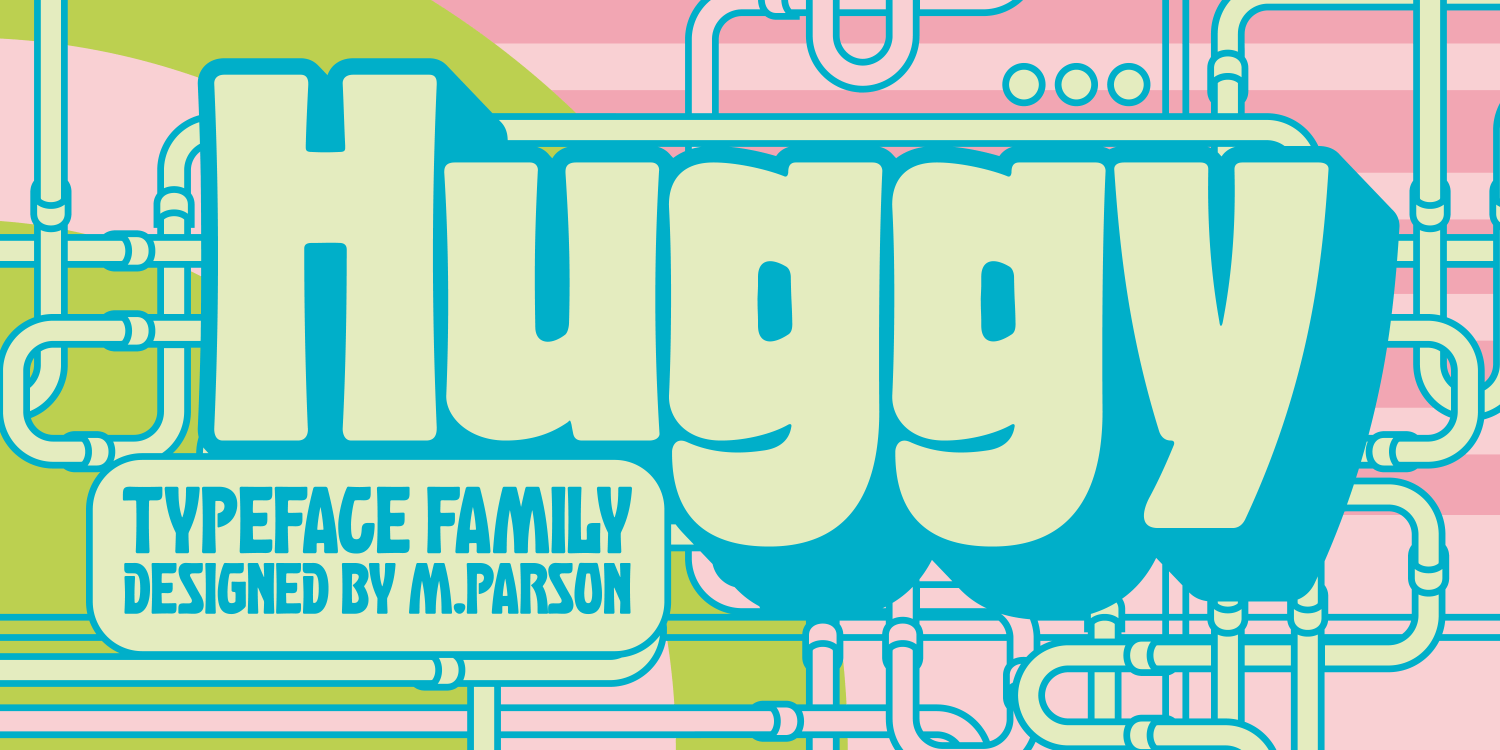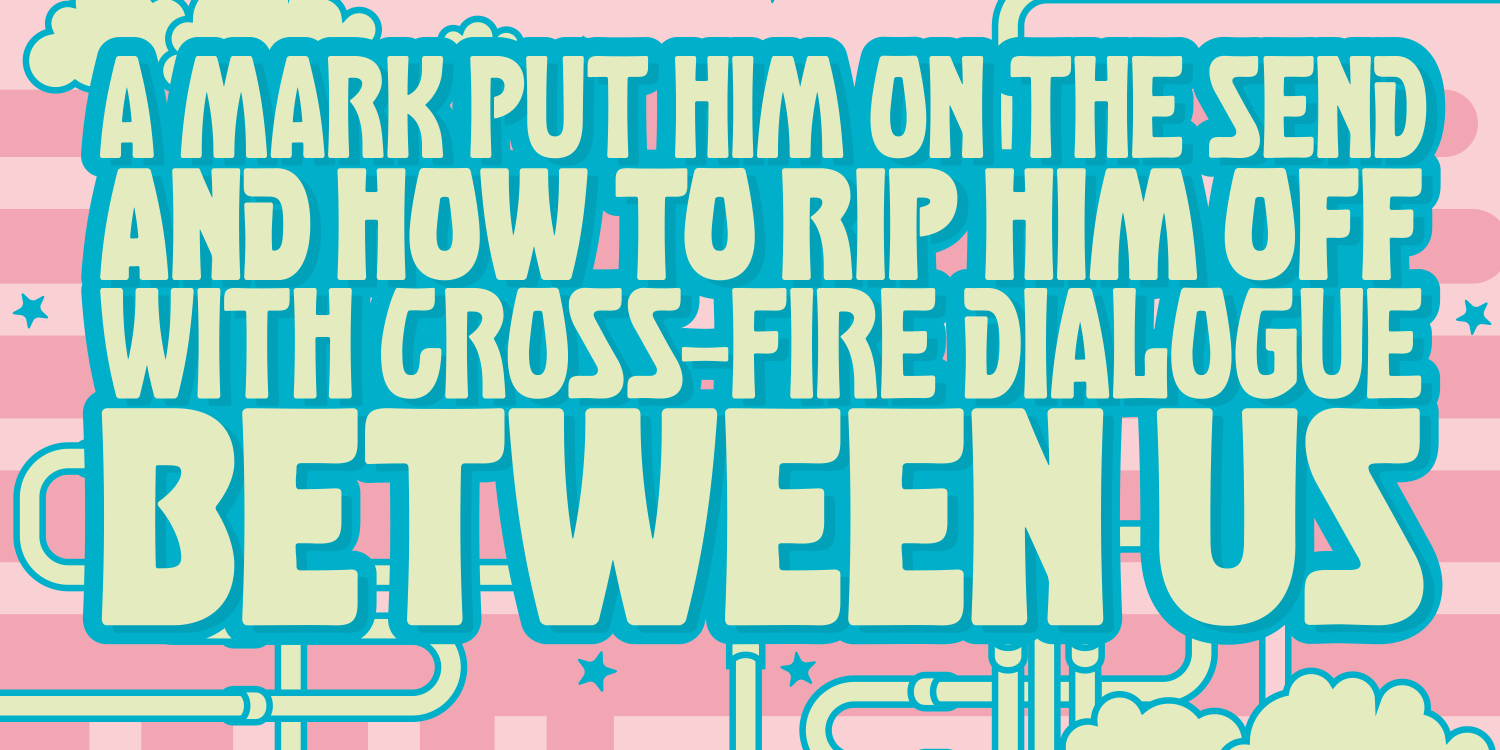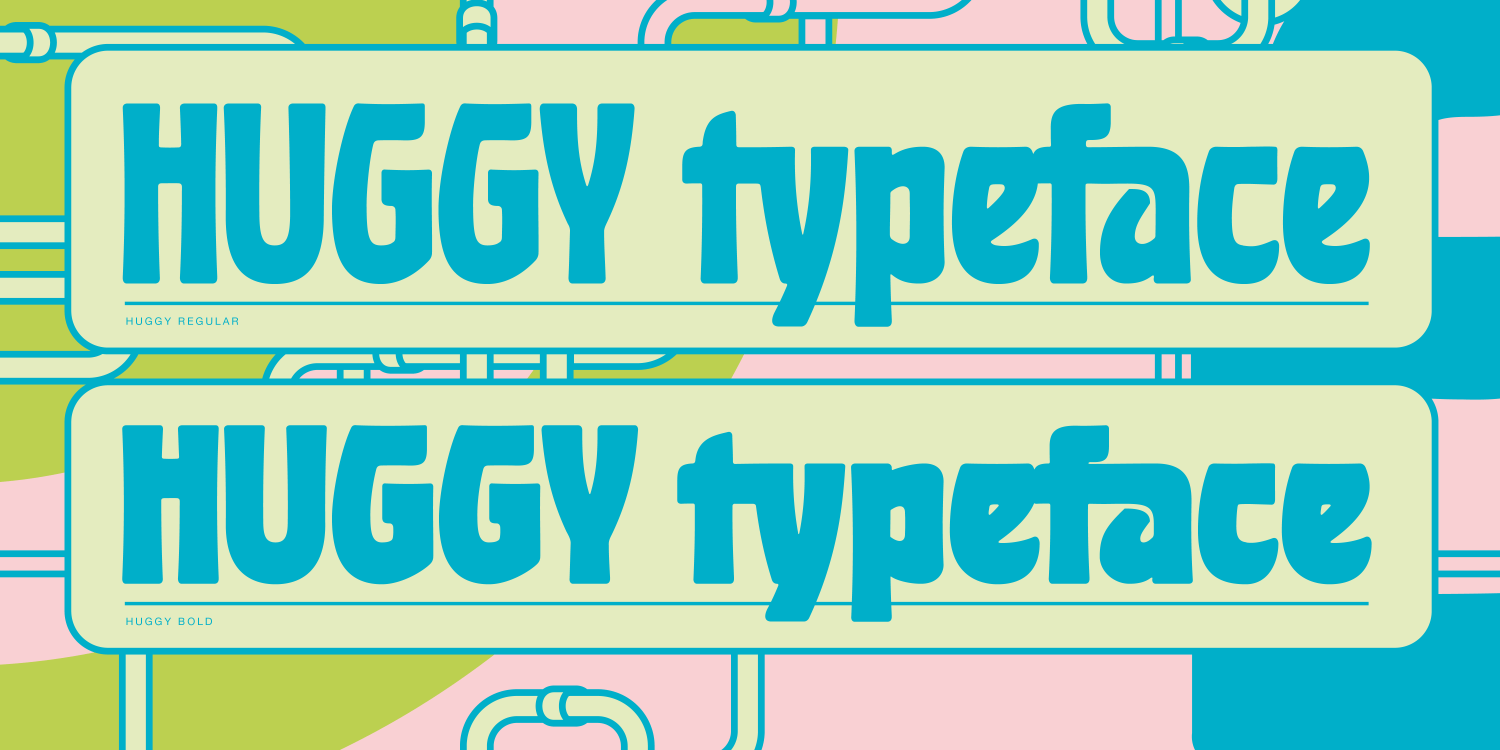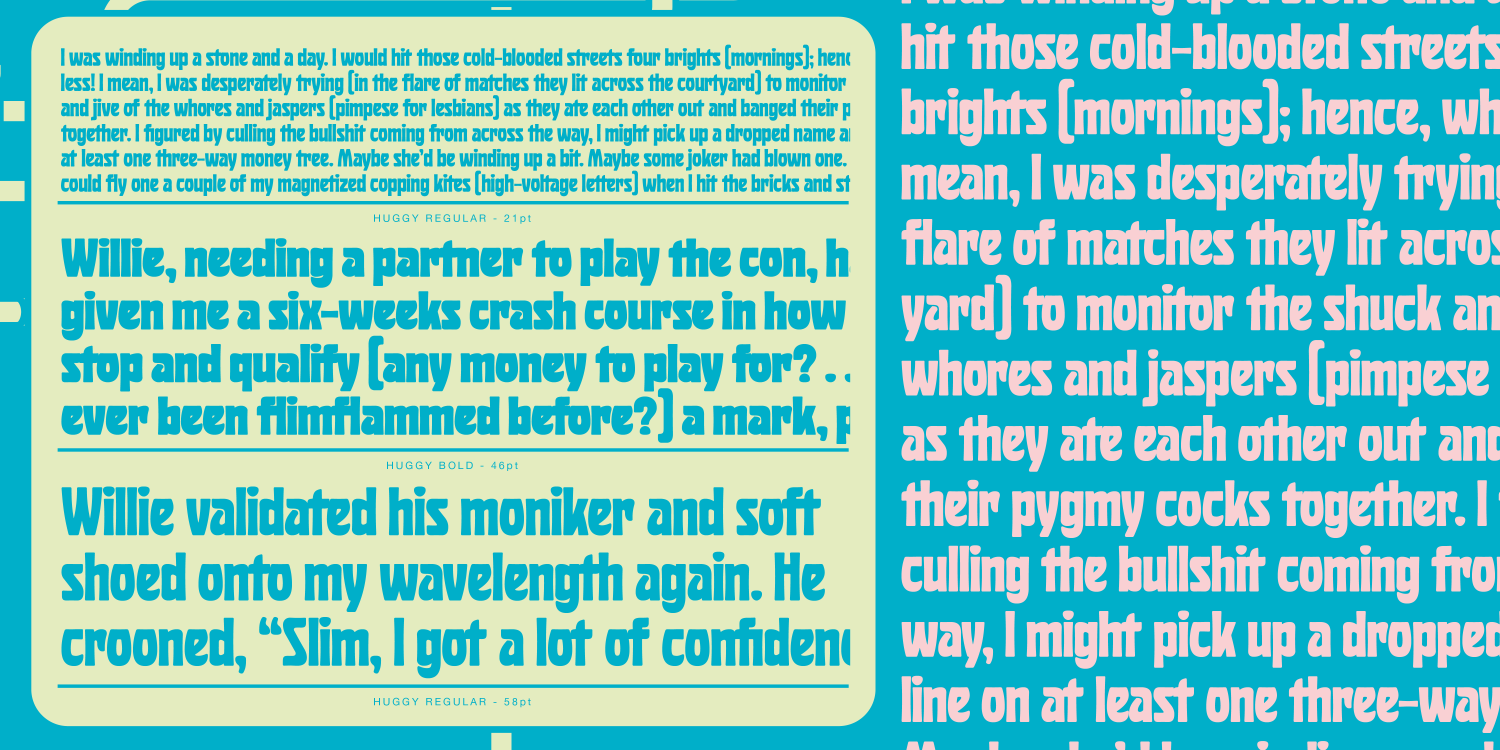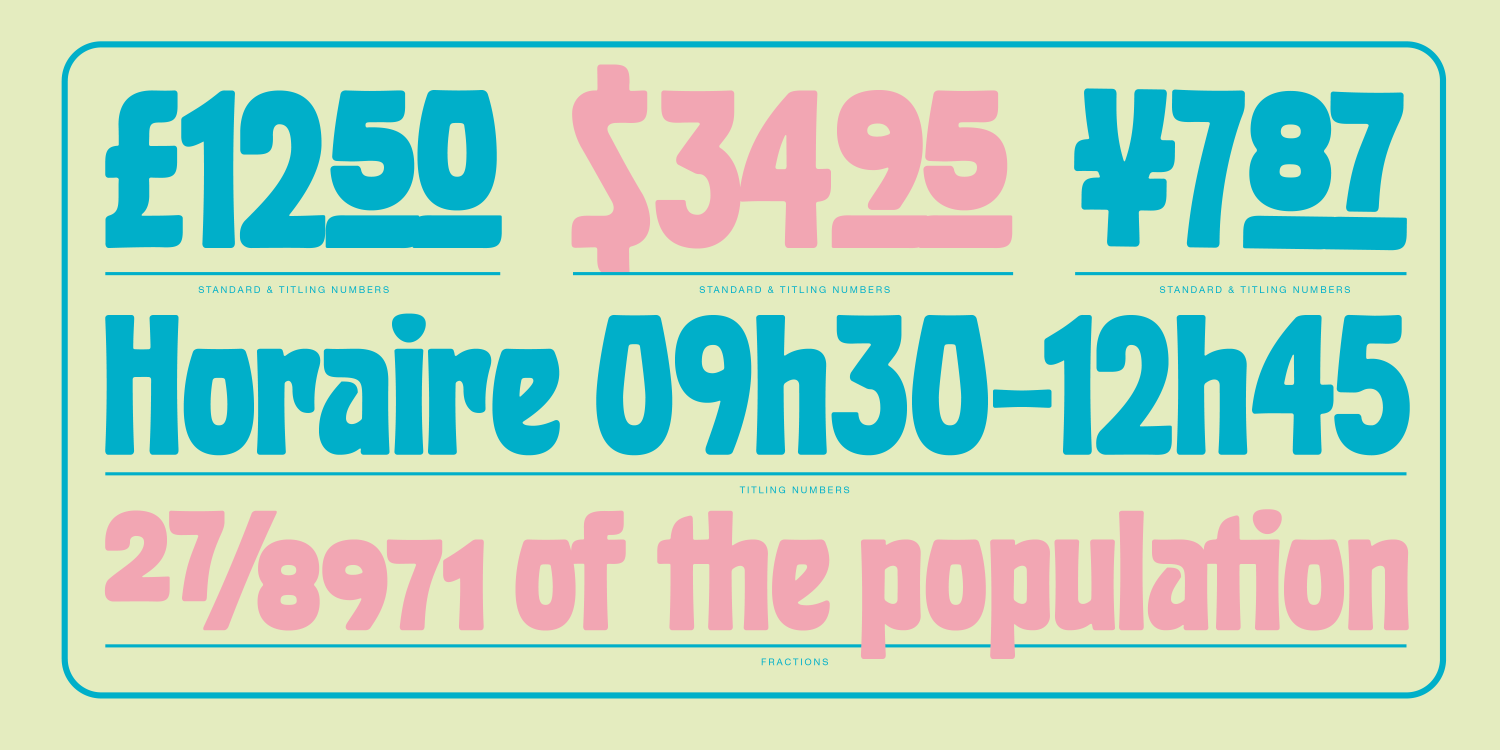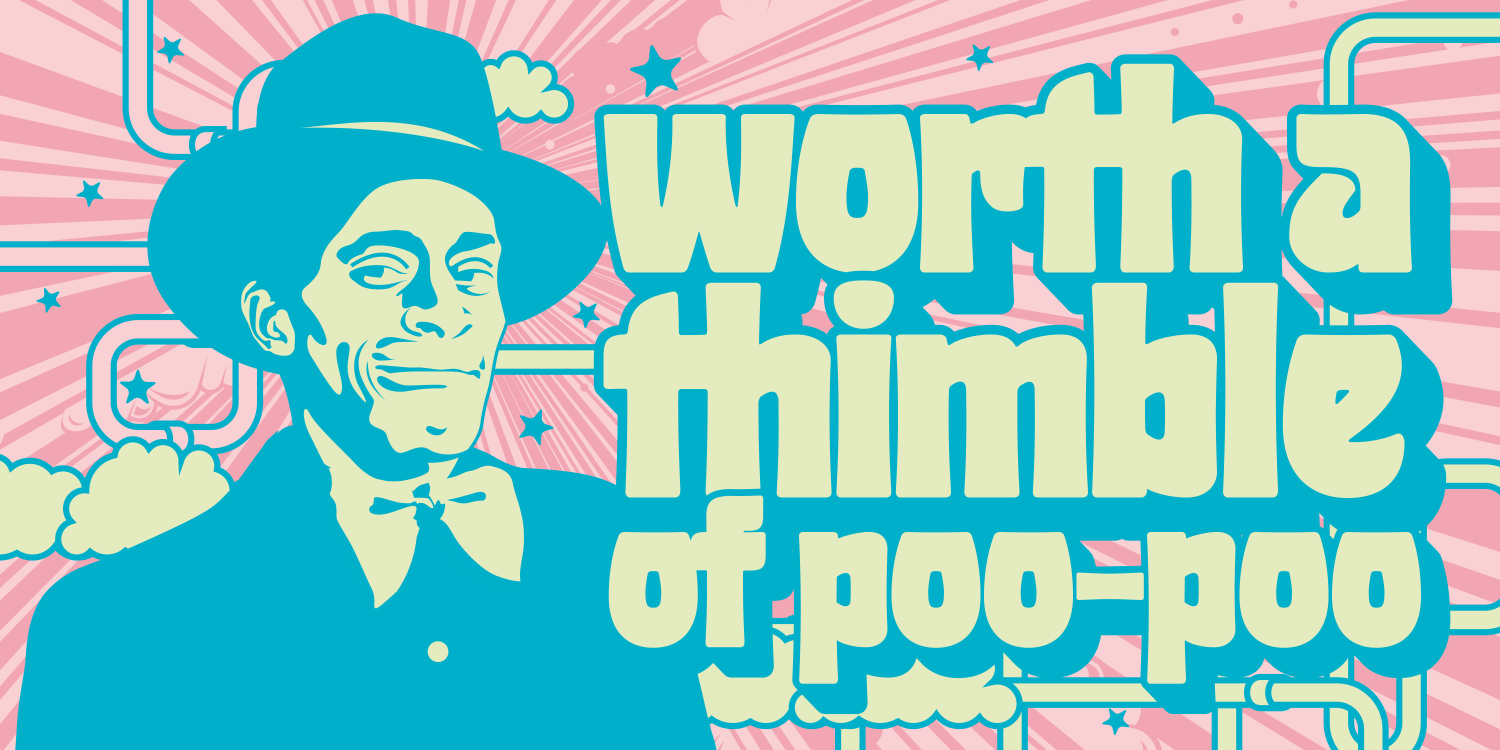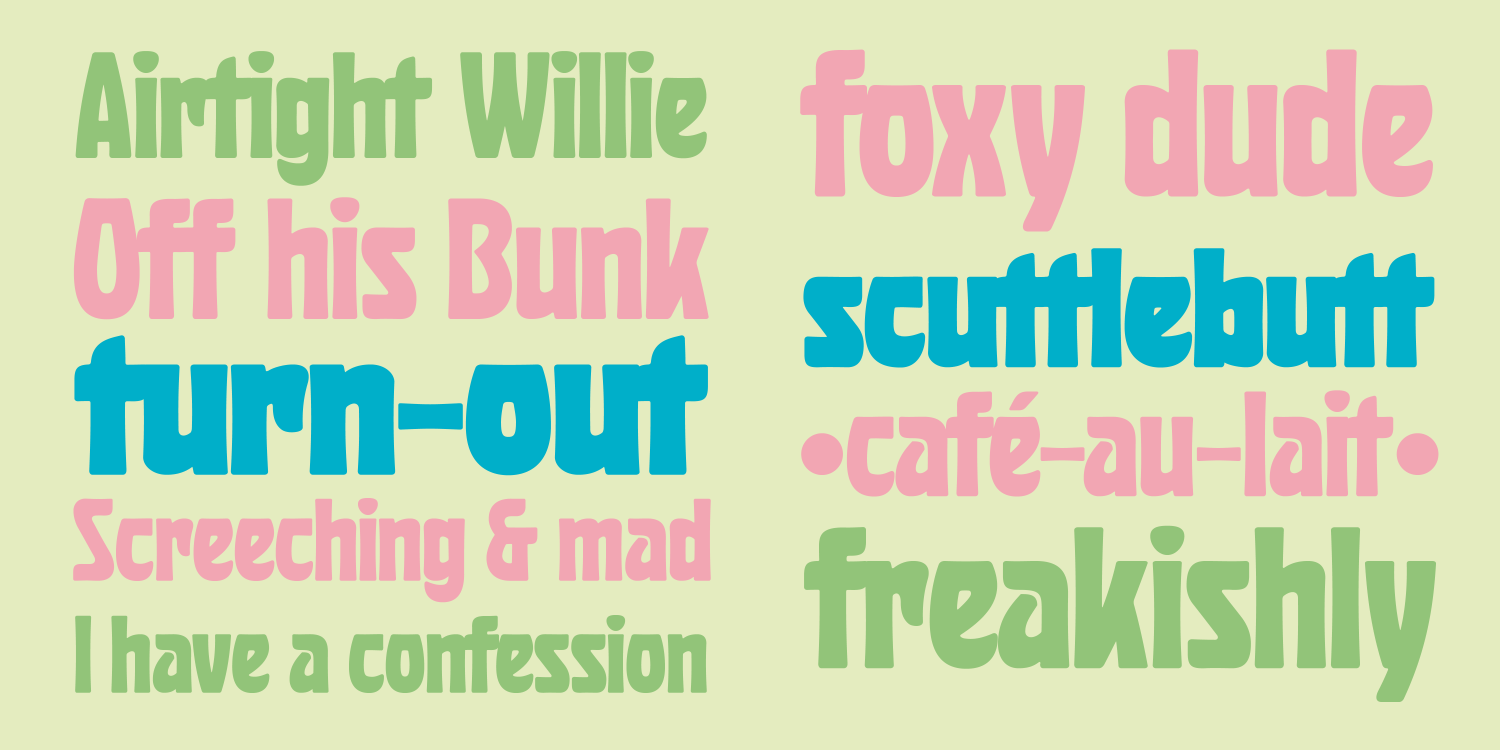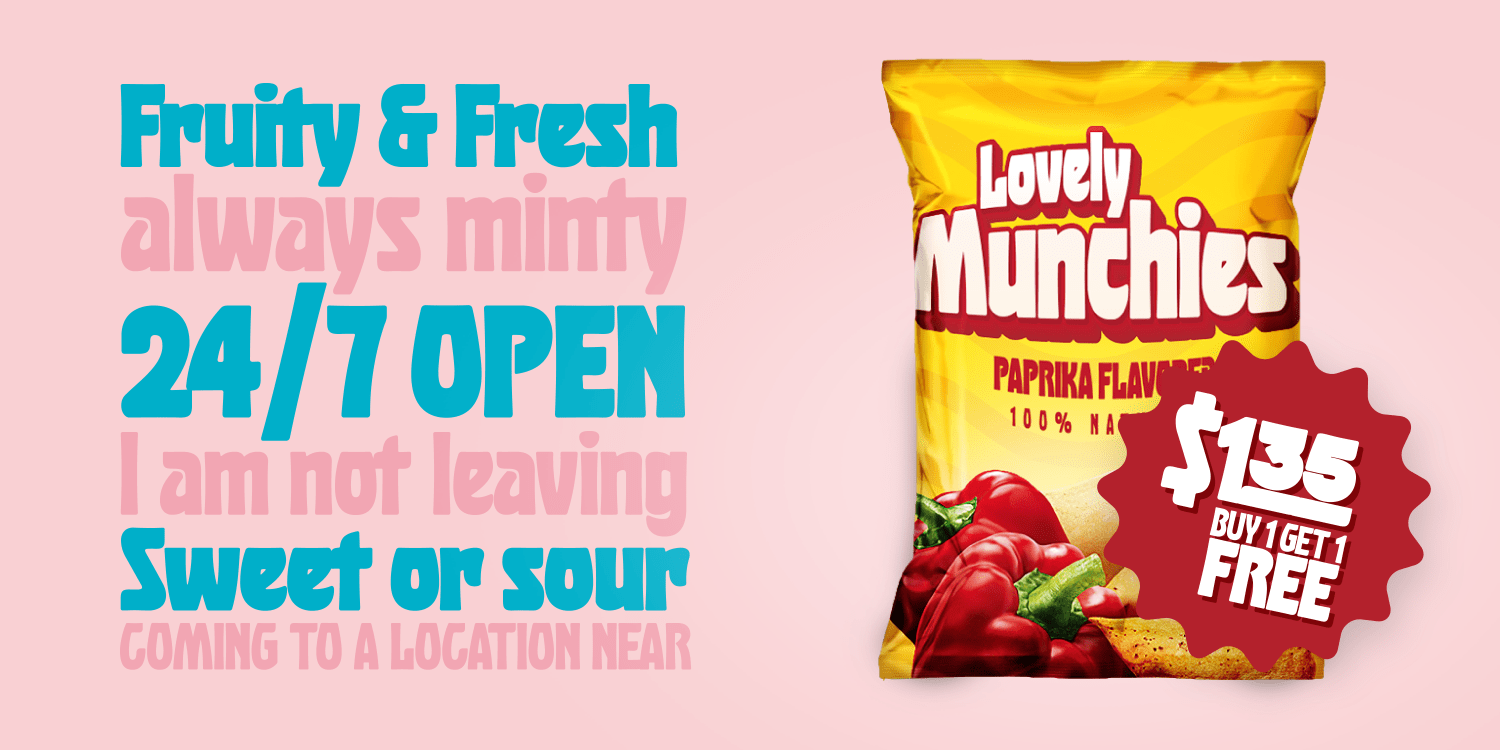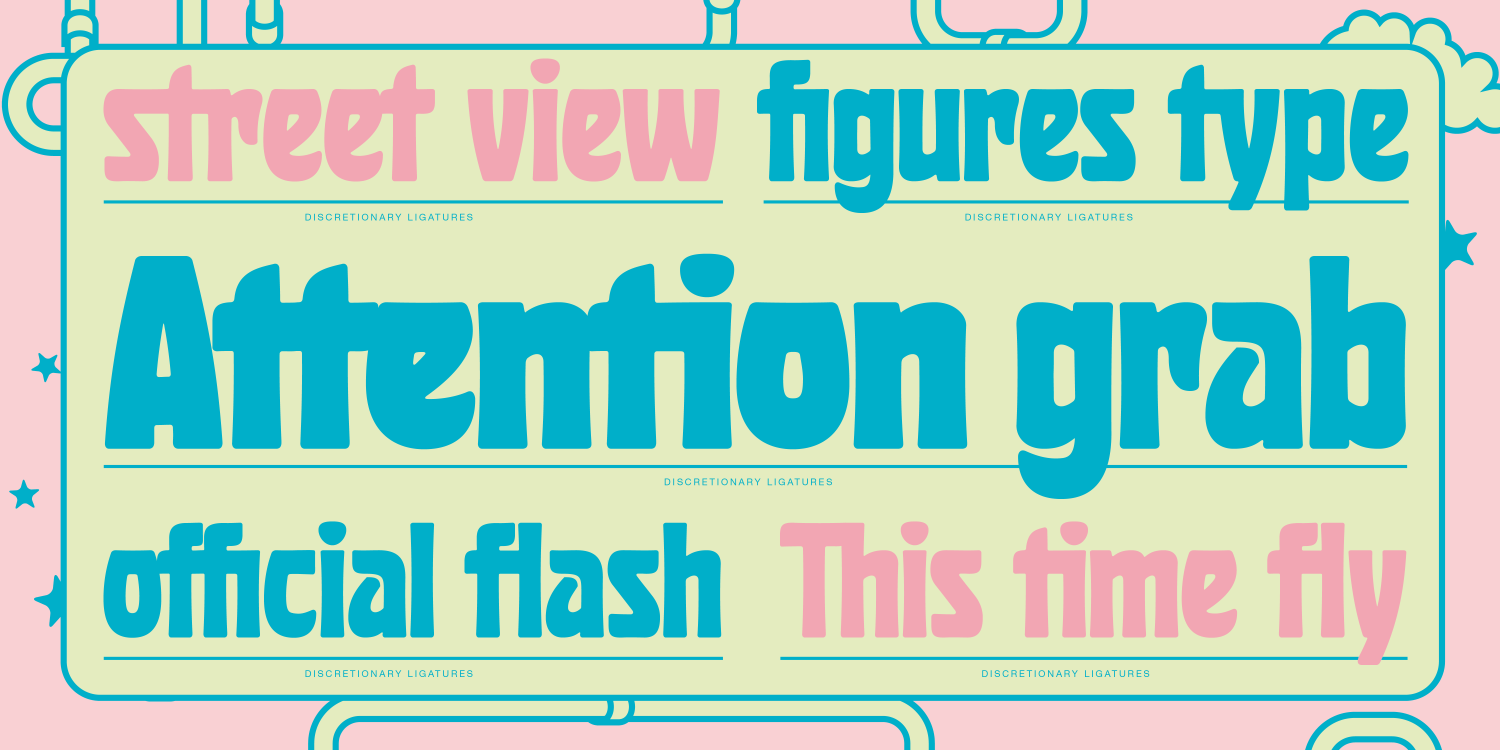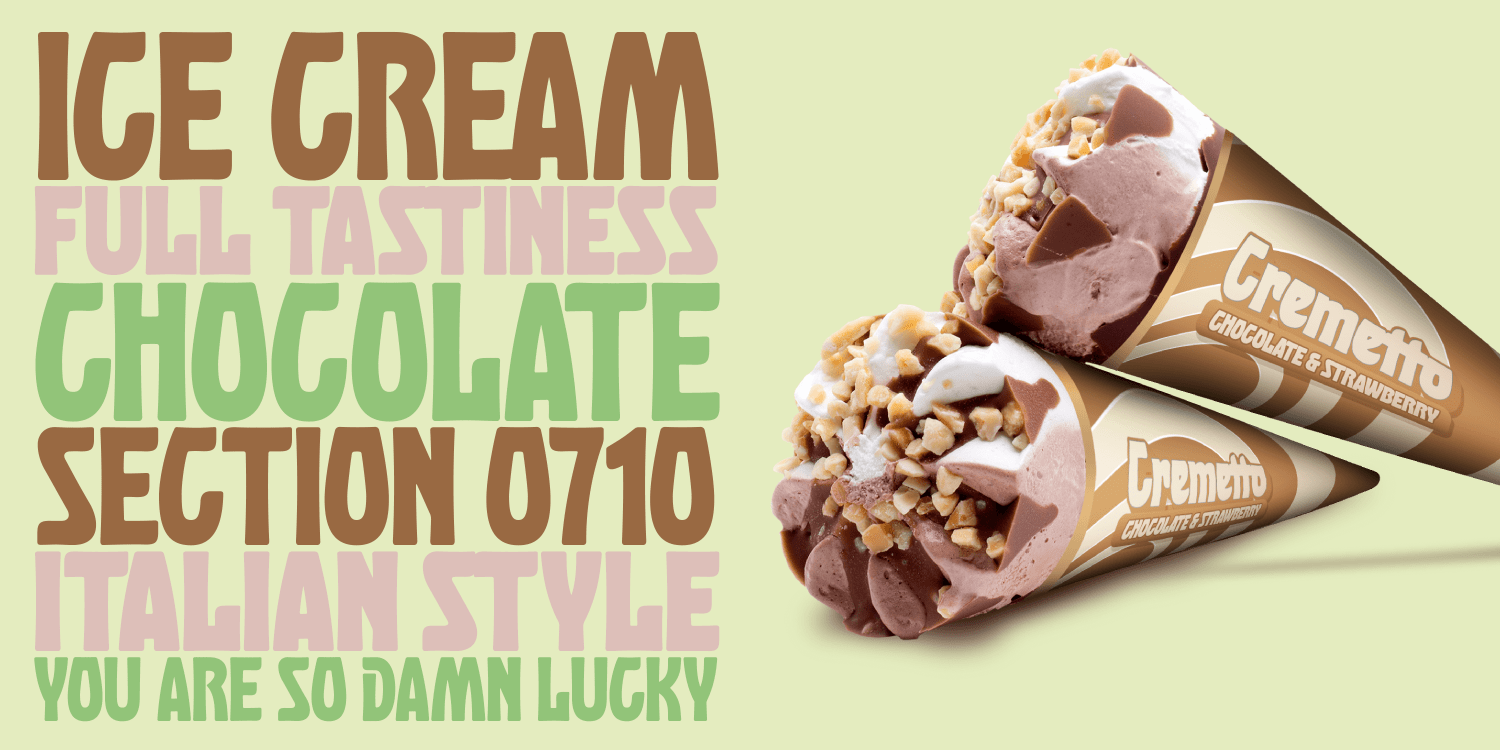
Huggy
Font Family by Typogama
Huggy is a display typeface designed by Michael Parson and inspired by the work of Heinrich Heinz. Full of Art Nouveau flair, this two weight typeface is bold forceful but full of subtle features that give the design a unique personality. With a narrow width and tall aspect, it is perfect for setting text in tight spaces like posters or other titling situations.